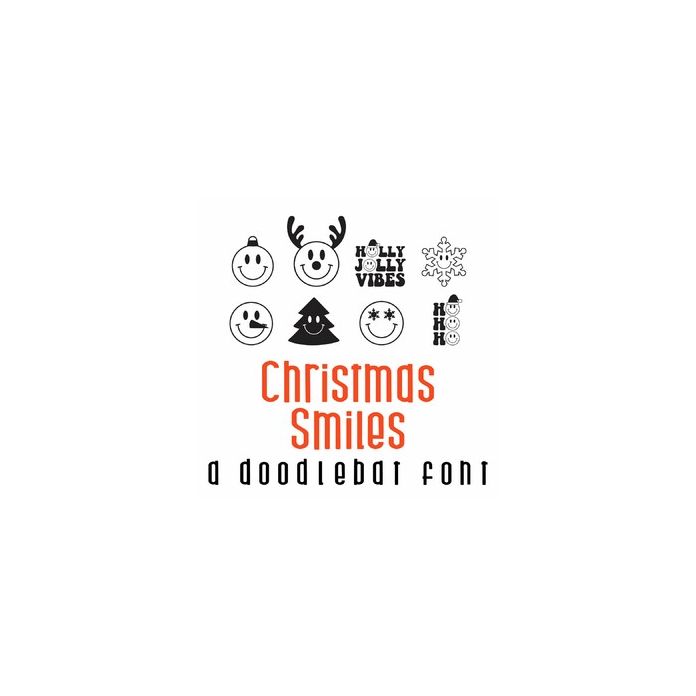
Christmas Smiles Doodlebat Font
This fun doodlebat font features 26 Christmas smileys . Perfect for cards, gifts, decor, crafts, scrapbook pages, planner stickers and more!